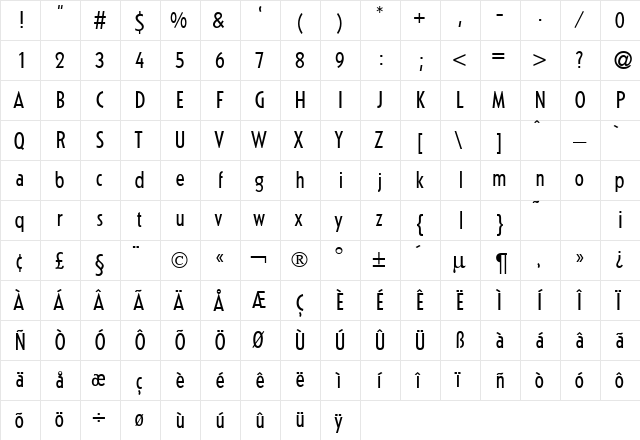
KabinConDB Normal Font Preview
KabinConDB Normal
KabinConDB Normal Font Details
Design Context for KabinConDB Typeface
KabinConDB is a composed and adaptable typeface that performs quietly and consistently across a wide range of design contexts. Its narrow stance lets it pack a punch even in space-constrained designs.